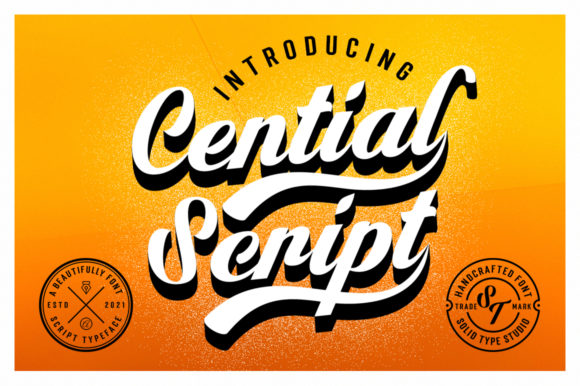
Cential Font: A Highly Legible Script Font with a Touch of Bold, Classic, and Fun Vintage
In the world of typography, fonts play a crucial role in conveying messages, expressing emotions, and creating visual identities. Among the numerous fonts available, Cential Font stands out as a highly legible script font that combines bold, classic, and fun vintage elements. In this article, we’ll explore the features, benefits, and uses of Cential Font, and why it’s an excellent choice for various design projects.
What is Cential Font?
Cential Font is a script font designed with a unique blend of bold, classic, and fun vintage styles. Its highly legible design makes it perfect for use in various applications, including posters, t-shirts, signage, logos, news, badges, and more. The font comes with Open Type features, including stylistic alternates, which allow designers to experiment with different styles and create unique visual effects.
Key Features of Cential Font
- Highly Legible: Cential Font is designed to be highly legible, making it easy to read and understand, even at small sizes.
- Open Type Features: The font comes with Open Type features, including stylistic alternates, which allow designers to create unique and creative visual effects.
- Vintage Style: Cential Font has a fun vintage style that adds a touch of classic elegance to any design project.
Benefits of Using Cential Font
Cential Font offers several benefits to designers, including:
- Versatility: The font can be used for various design projects, from posters and t-shirts to signage and logos.
- Legibility: Cential Font’s highly legible design makes it perfect for use in body text, headlines, and titles.
- Creativity: The font’s Open Type features and stylistic alternates allow designers to experiment with different styles and create unique visual effects.
Uses of Cential Font
Cential Font can be used for a wide range of design projects, including:
- Posters: Create eye-catching posters with Cential Font’s bold and classic style.
- T-Shirts: Design unique and stylish t-shirts with Cential Font’s fun vintage style.
- Signage: Use Cential Font for signage projects, such as billboards, banners, and store signs.
- Logos: Create memorable logos with Cential Font’s highly legible and classic design.
- News: Use Cential Font for news articles, headlines, and titles.
- Badges: Design badges and labels with Cential Font’s bold and classic style.
Tips for Using Cential Font
Here are some tips for using Cential Font effectively:
- Experiment with Stylistic Alternates: Take advantage of Cential Font’s Open Type features and stylistic alternates to create unique visual effects.
- Use it for Headlines and Titles: Cential Font’s bold and classic style makes it perfect for use in headlines and titles.
- Pair it with Other Fonts: Experiment with pairing Cential Font with other fonts to create visually appealing combinations.
- Adjust Font Size and Color: Adjust the font size and color to create visual hierarchy and emphasize important information.
Cential Font is a highly legible script font that combines bold, classic, and fun vintage elements. Its Open Type features, stylistic alternates, and PUA encoding make it a versatile and creative choice for various design projects. With its international support for most Western languages, Cential Font is perfect for global design projects. Whether you’re designing posters, t-shirts, signage, logos, or news articles, Cential Font is an excellent choice.